“木 (Ki)” That Cannot Be Copy-Pasted 04: “Thickness”
Adjustment of thickness is essential to creating a sense of unity in the character. For “木 (Ki)” that comes in the center, there are more adjustments in the horizontal stroke. Thickness is adjusted while remaining aware of the number of horizontal strokes in the entire character and the strokes that should look strong. On the other hand, the thickness of the vertical strokes is mainly adjusted to correspond to various widths in vertically long “木 (Ki),” such as ki-hen, etc. Regarding sweeping, the horizontal stroke is used as an indication for horizontally long sweeping, and the vertical stroke is used as an indication for vertically long sweeping. In the case of kanji characters with a lot of strokes, sweeping may be intentionally made thinner to avoid congestion. For “木 (Ki),” blackness in the part where lines are concentrated tends to become strong, so the strokes are made thinner than the other elements to match blackness in the entire character – this method of adjustment is often used.
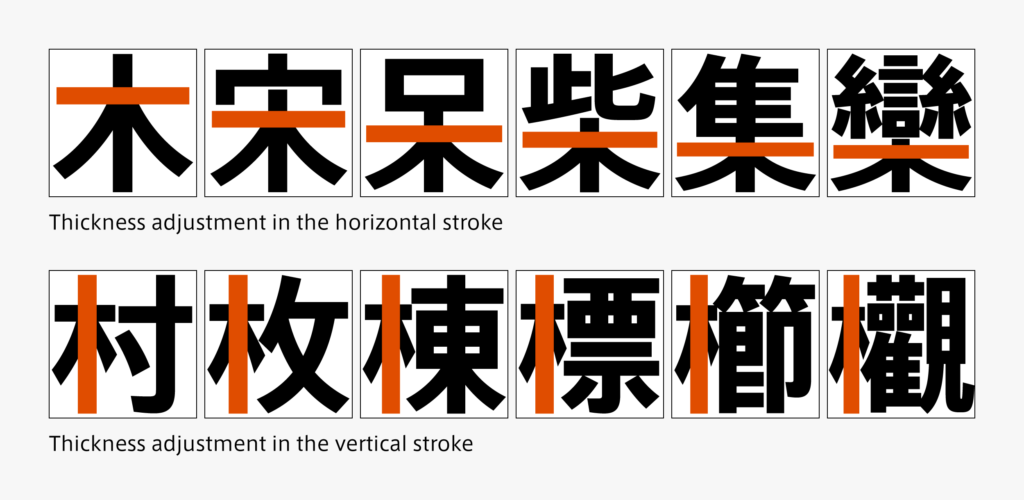
Creating kanji with the inclusion of “木 (Ki)” is introduced in this article. There are other points that can be applied to the other radicals. However, there are particularly important points specific to each constituent of kanji. Therefore, various other adjustments are made to create a brief glyph in fonts.